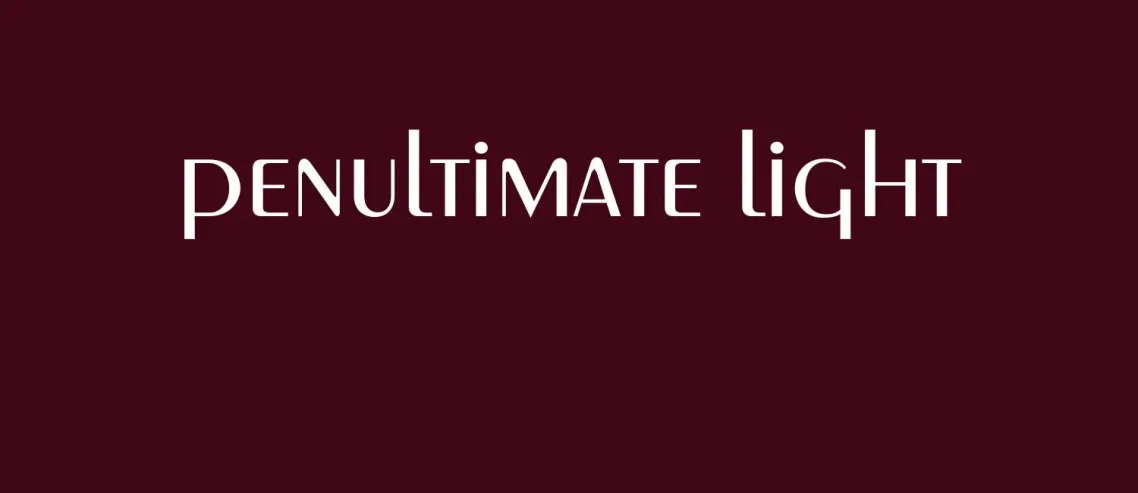
Penultimate Light Regular Font offers a clean and modern aesthetic, making it a versatile choice for a wide range of design projects.
Whether used in corporate presentations or web design, this font’s readability and simplicity shine through. Supporting standard file formats like TTF and OTF, Penultimate Light Regular Font facilitates easy integration into different design software, ensuring a sleek and contemporary look.
Style | Sans-Serif |